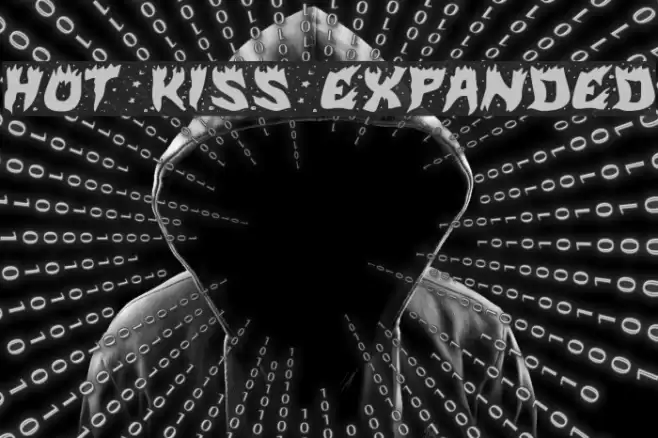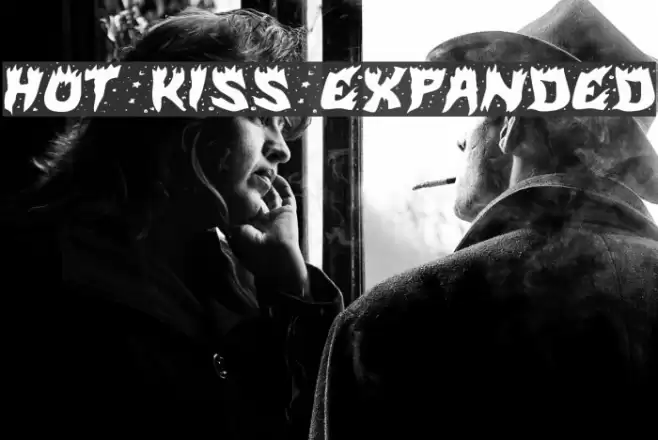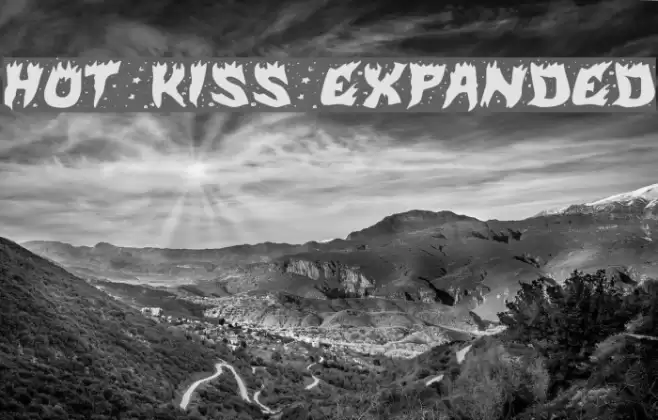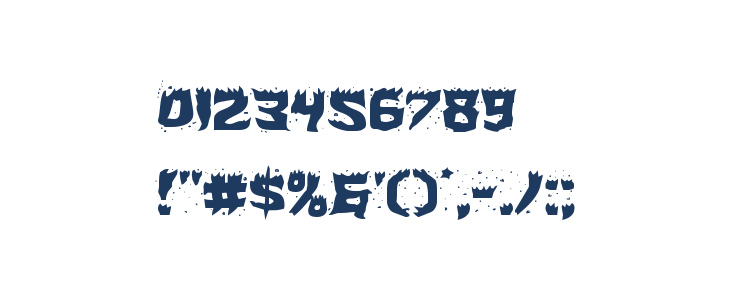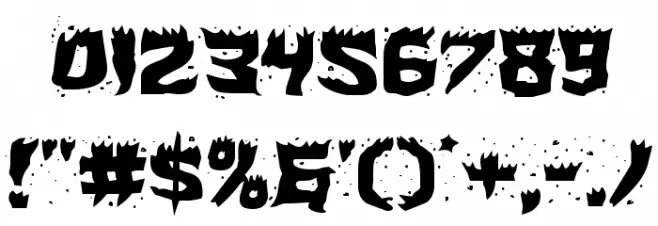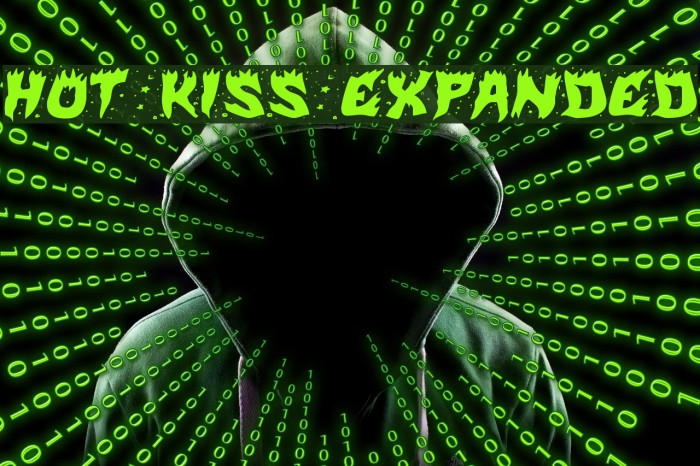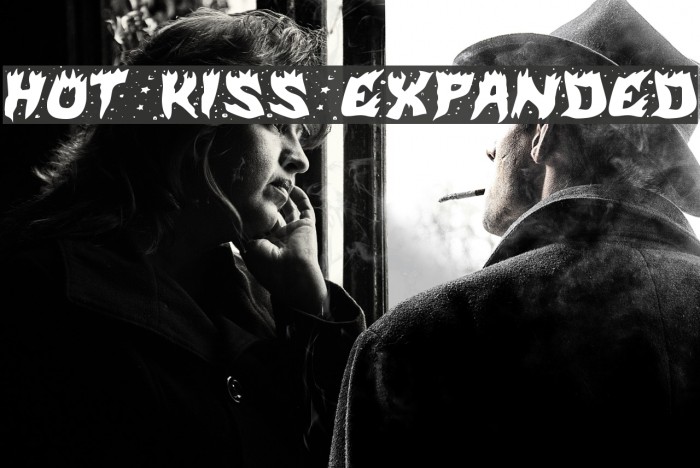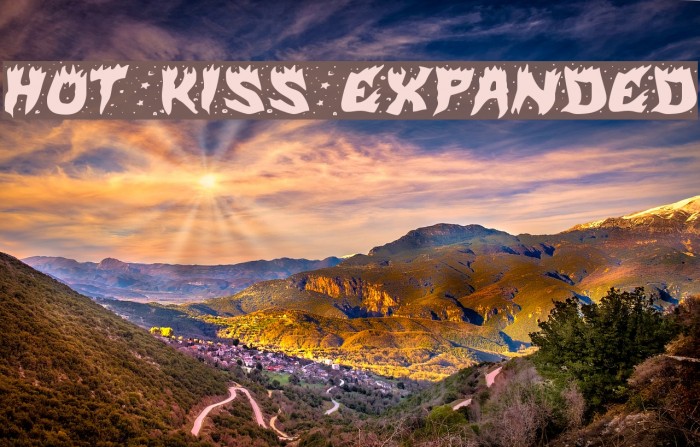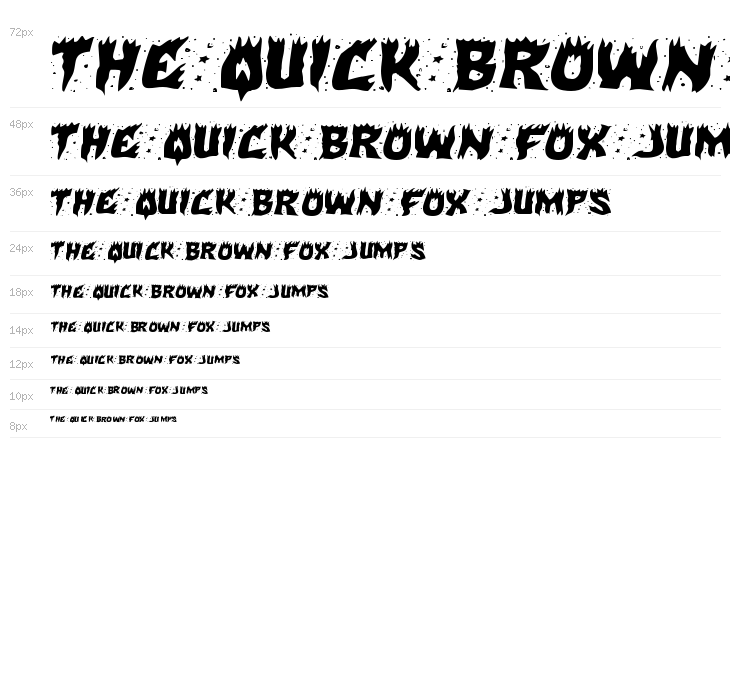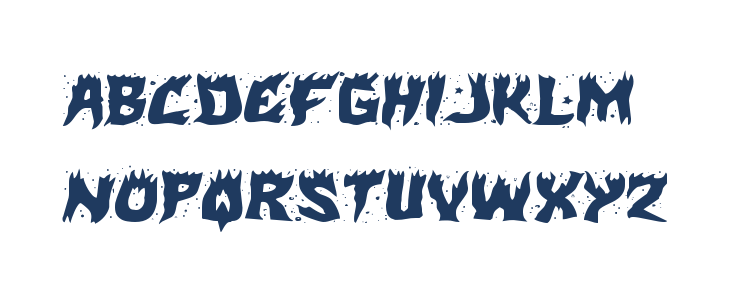
Hot Kiss Expanded Font
Hot Kiss Expanded Description
This font features a bold, dramatic style with jagged, irregular edges that give it a fiery, dynamic appearance. The characters are heavily stylized, with sharp angles and a sense of movement, making it ideal for attention-grabbing designs. The uppercase and lowercase letters maintain a consistent theme, with each character exhibiting unique variations that add to the overall chaotic aesthetic. The numbers and special characters follow the same design principles, ensuring a cohesive look across all elements. This font is perfect for projects that require a bold, impactful statement.
A bold, jagged font with a fiery, dynamic style from Uncategorized fonts.
- Proposed Projects: Ideal for horror-themed posters, edgy branding, music album covers, and Halloween event promotions.